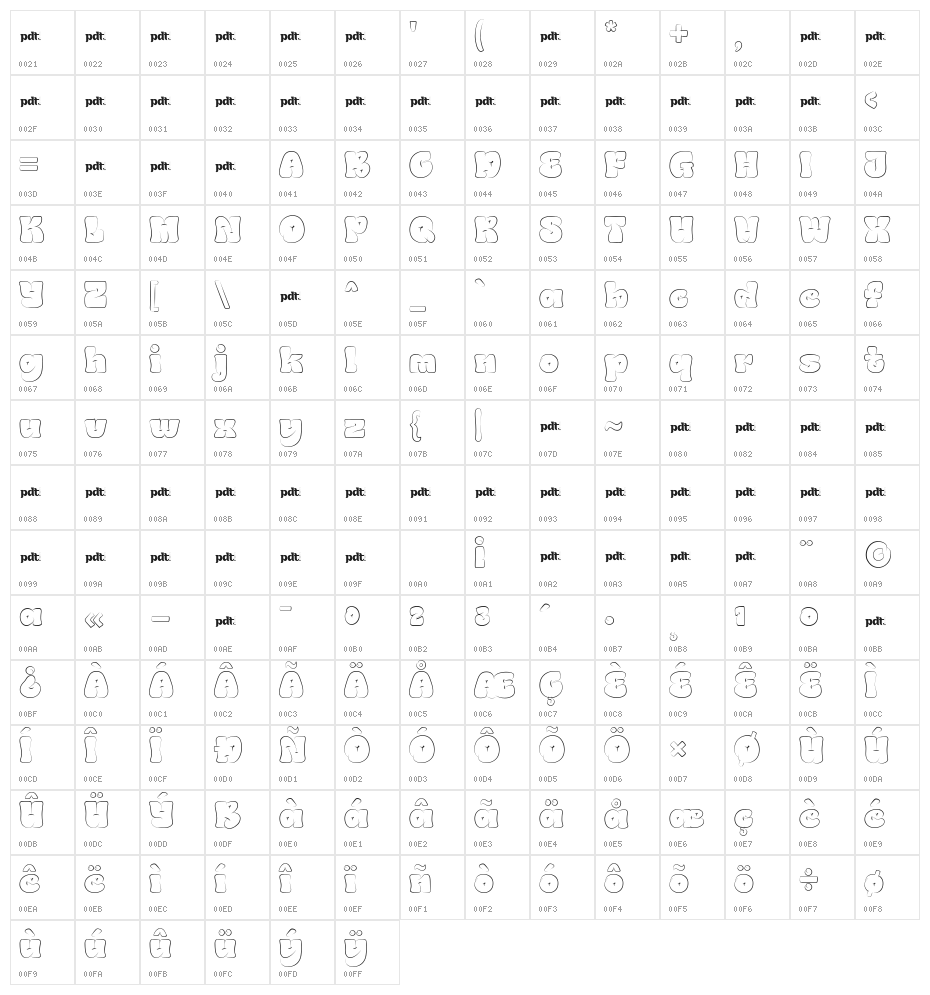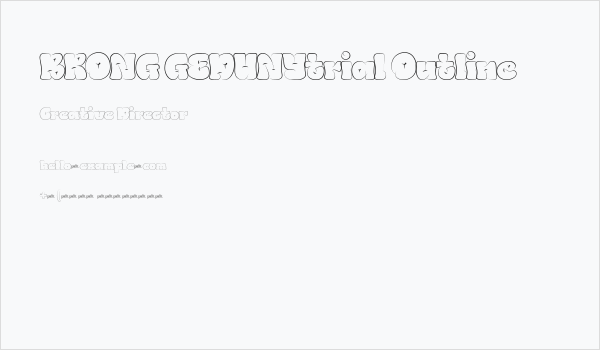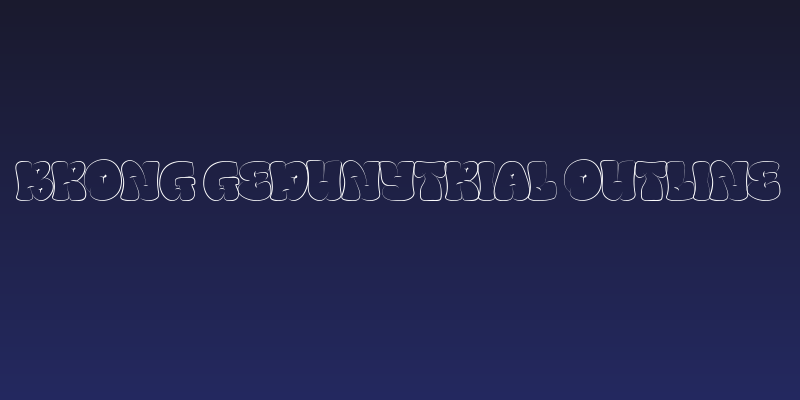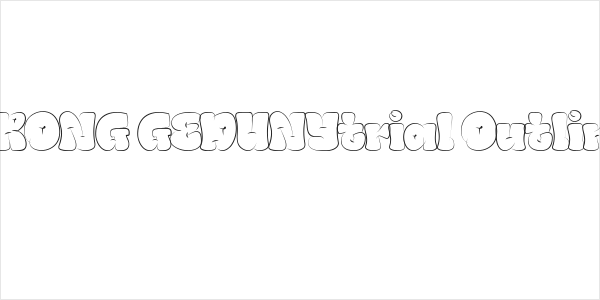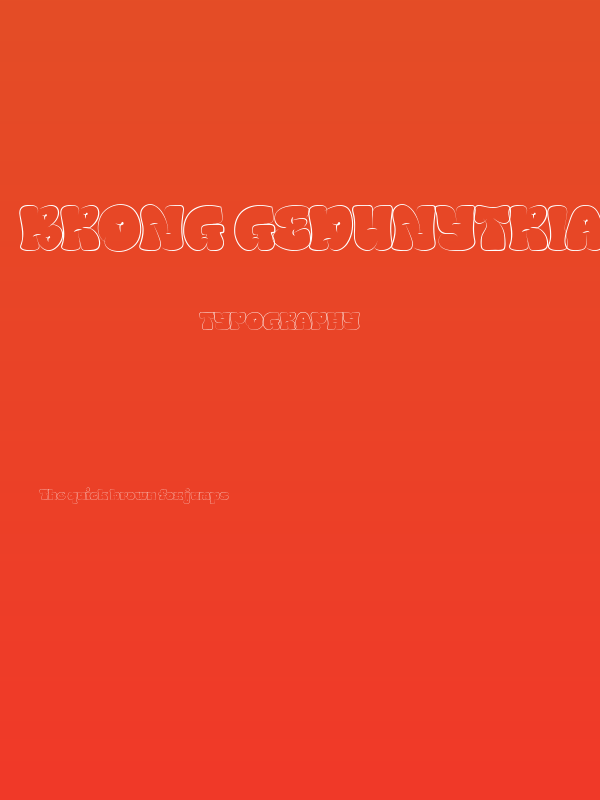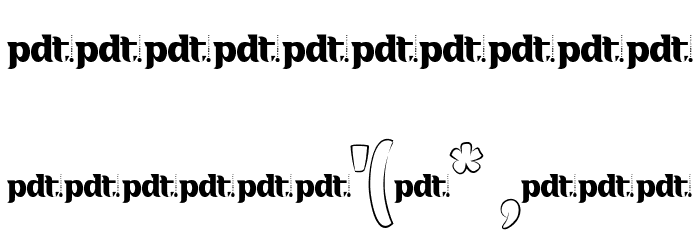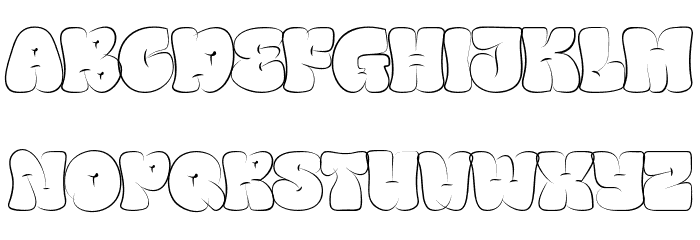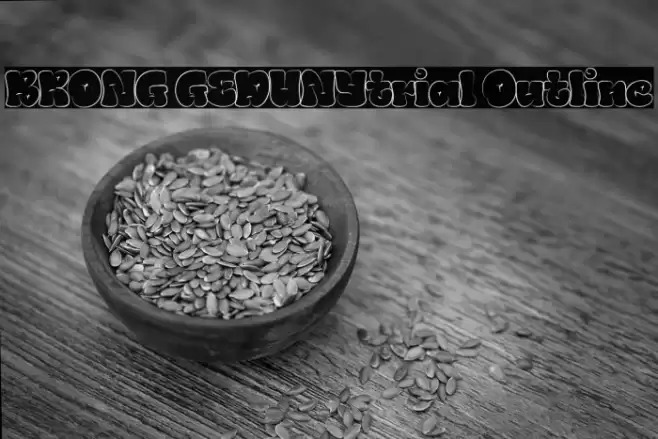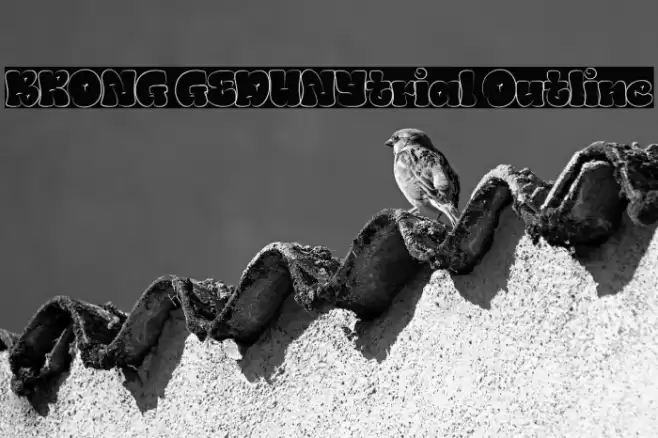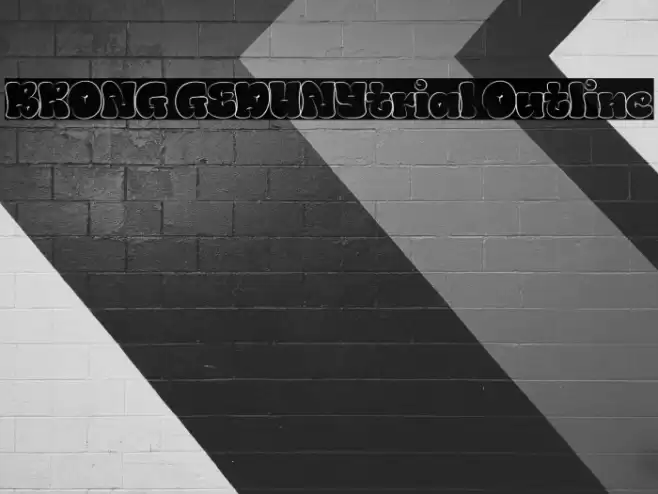
BRONG GEDUNYtrial Outline Font
BRONG GEDUNYtrial Outline Description
This playful and bold font features an outline style that gives each character a bubble-like appearance. The letters are rounded and thick, creating a sense of fun and whimsy. The uppercase and lowercase letters maintain a consistent style, with a uniform thickness throughout. The numbers and special characters follow the same design principles, ensuring a cohesive look. This font's unique outline effect makes it stand out, adding a touch of creativity and lightheartedness to any project.
| Overall Style | Playful, Fun, Whimsical |